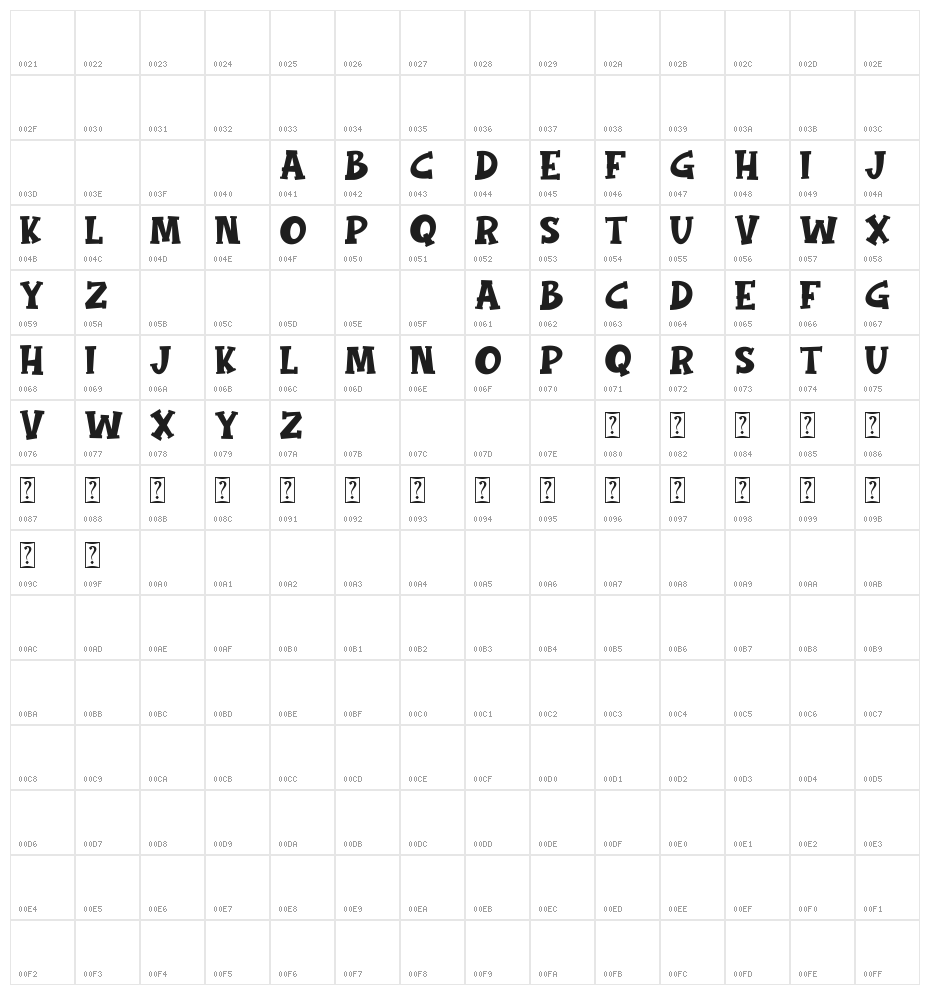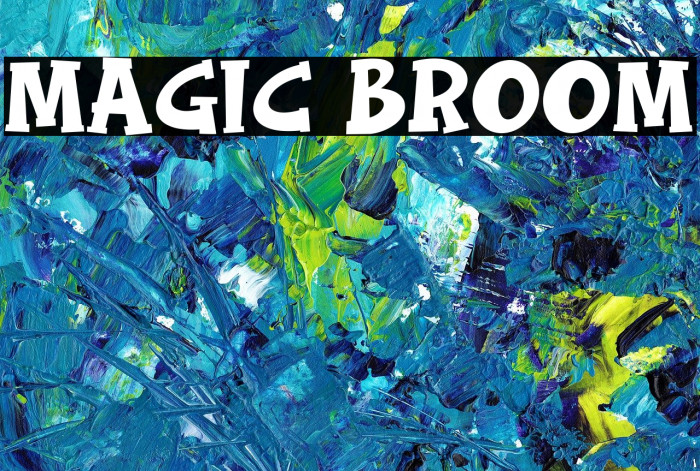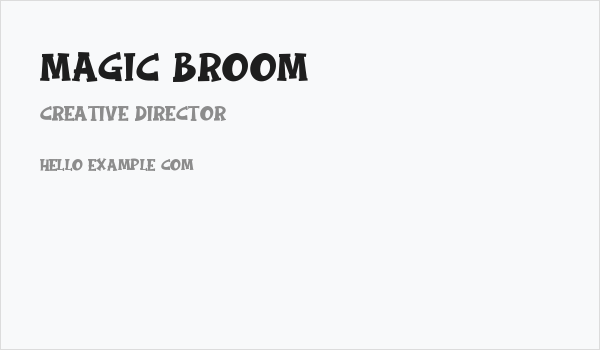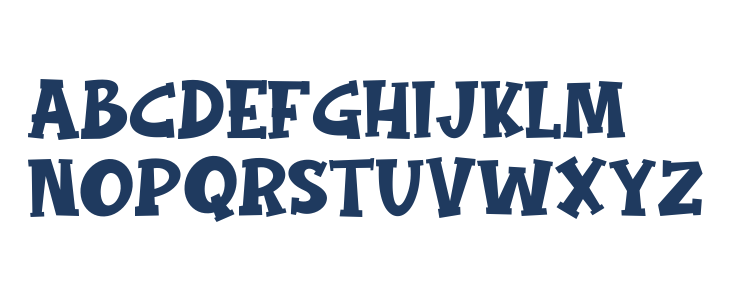
Magic Broom Font
Magic Broom Description
This font features a playful and whimsical style, characterized by its bold and exaggerated letterforms. The strokes are thick and uneven, giving it a hand-drawn appearance that adds a touch of fun and creativity. The letters have a slightly irregular baseline, enhancing its quirky and dynamic feel. This font is perfect for projects that require a lively and informal touch, such as children's books, party invitations, or playful branding. Its unique style makes it stand out, capturing attention with its bold and expressive design.